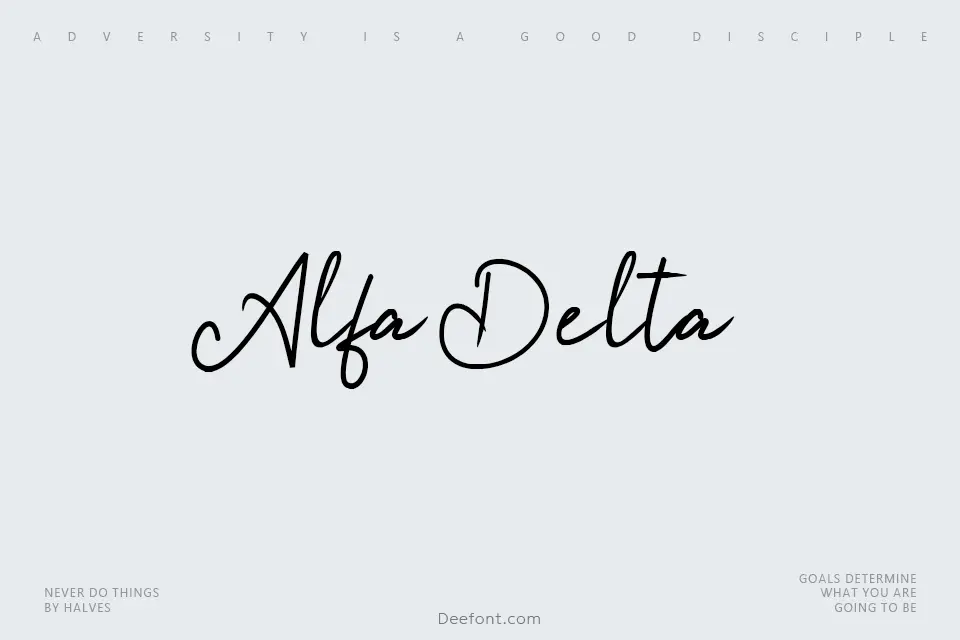
Alfa Delta Font
Alfa Delta is a dynamic handwritten script font designed by Sigit Nur Wicaksono. Characterized by its swift, natural strokes and signature-like flair, it adds an authentic personal touch to any project. Ideal for photography watermarks, branding materials, and creative logos, this font captures the essence of quick, confident penmanship.